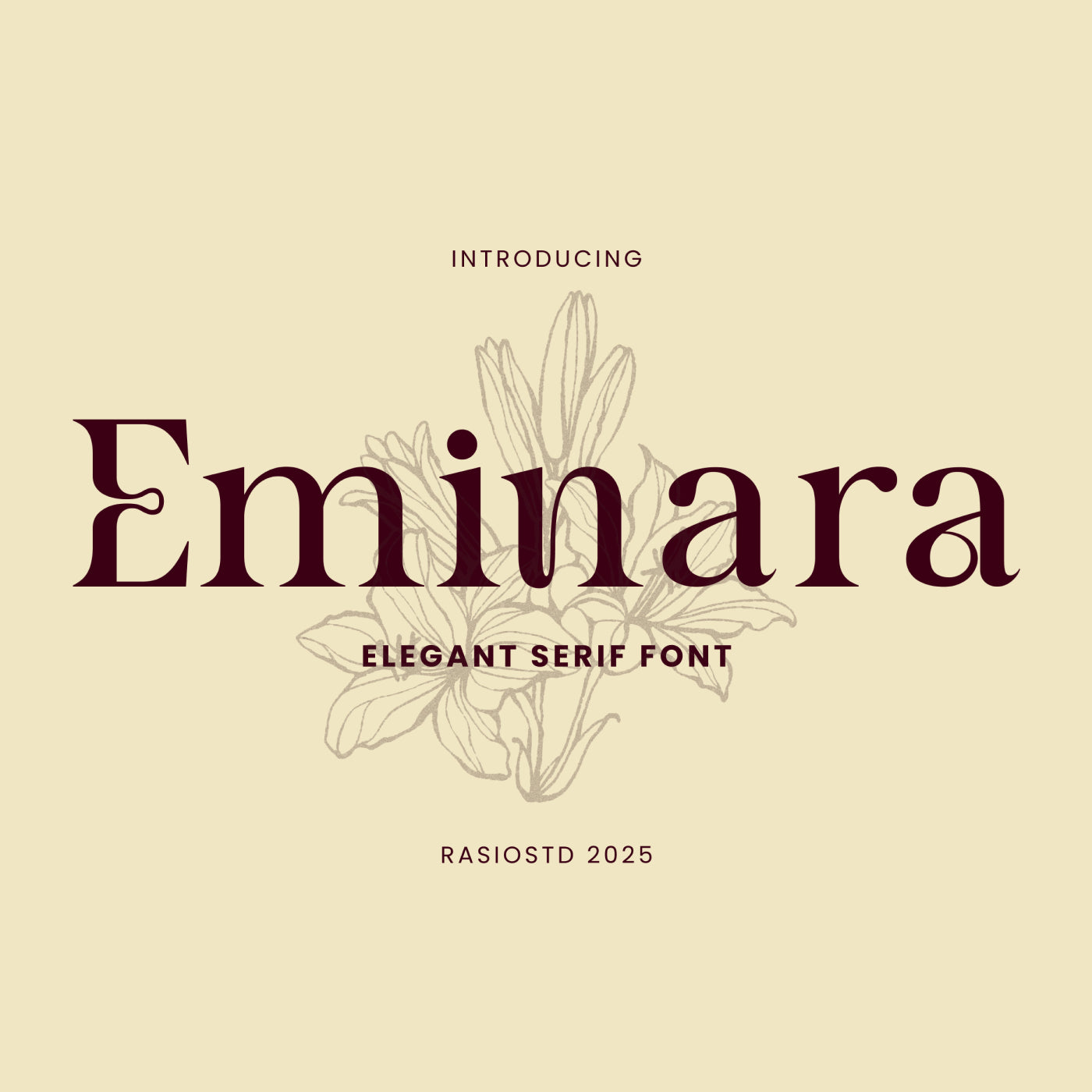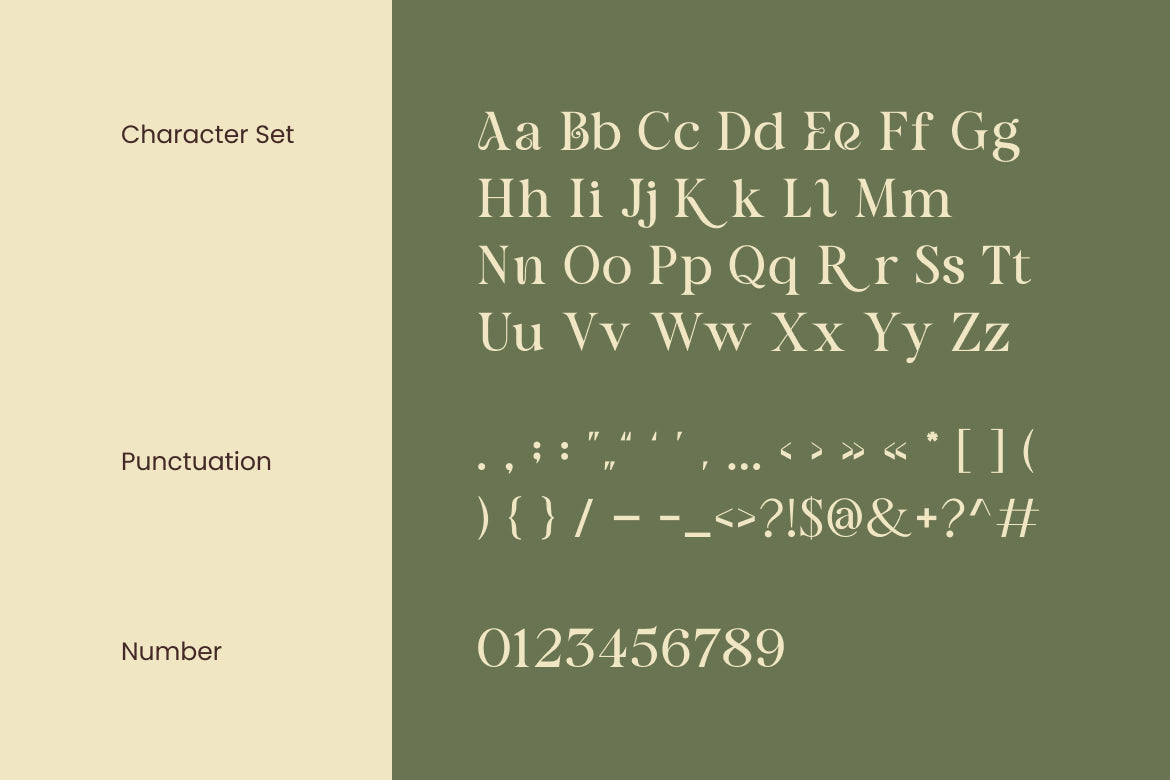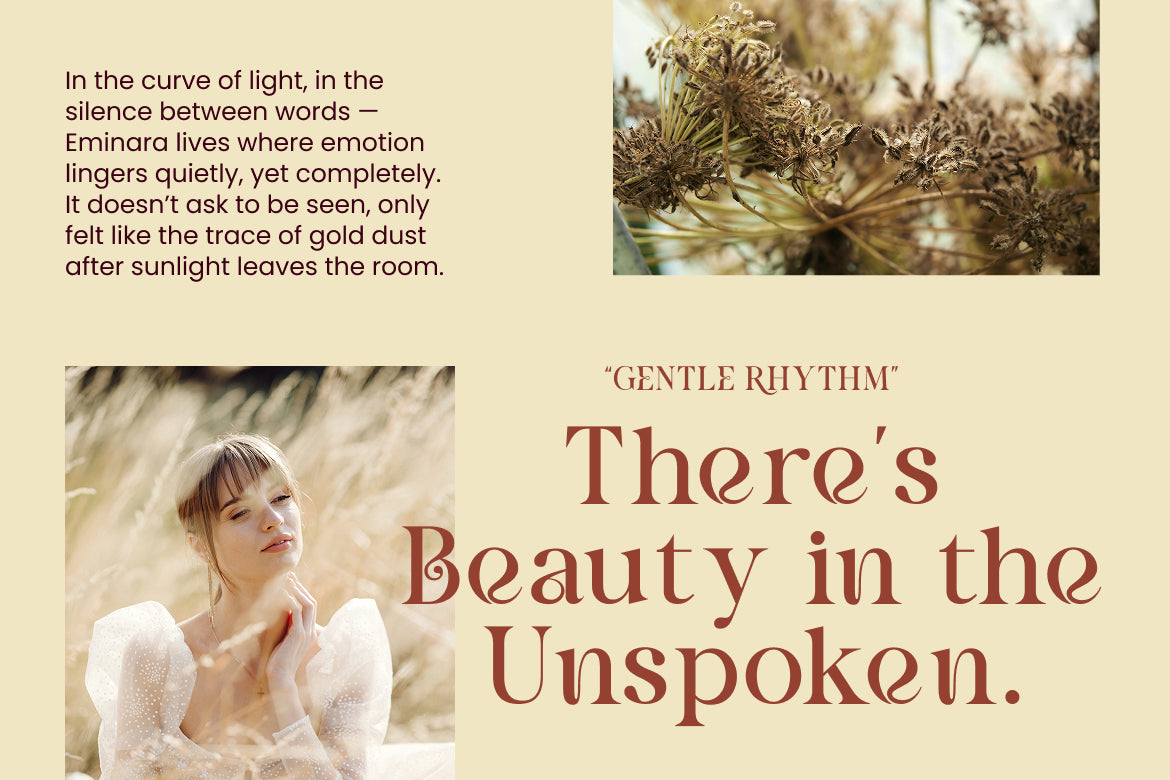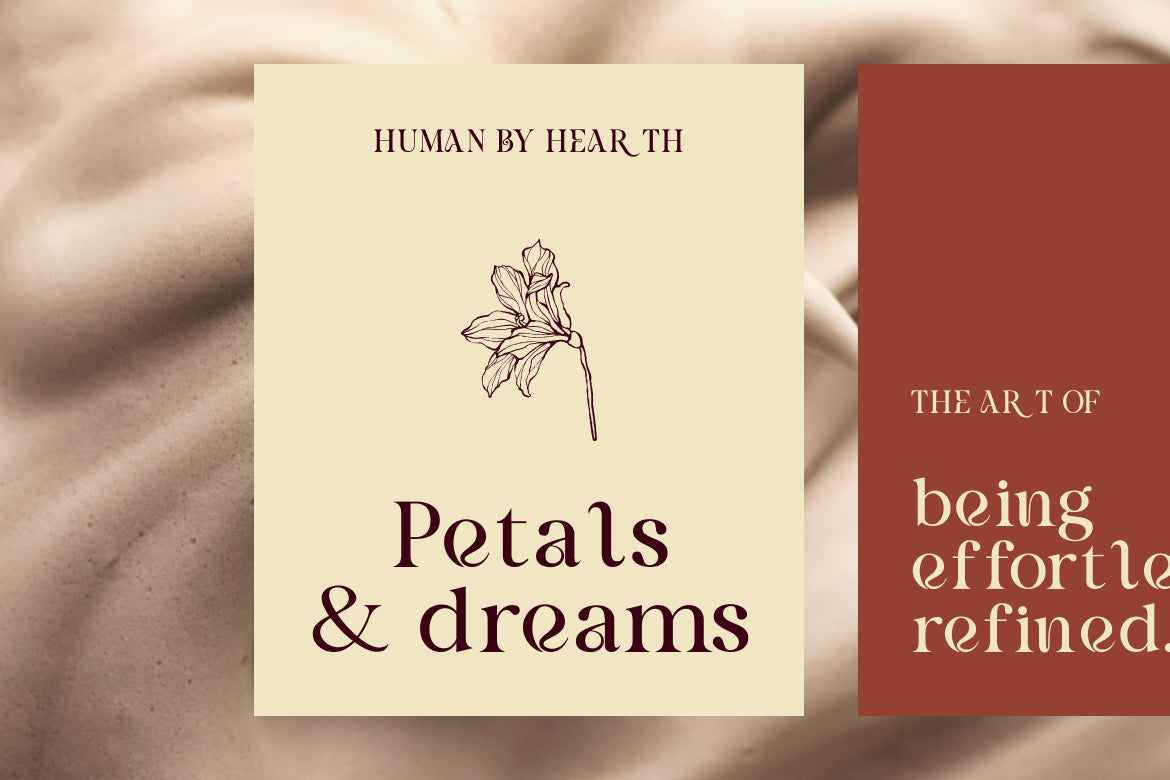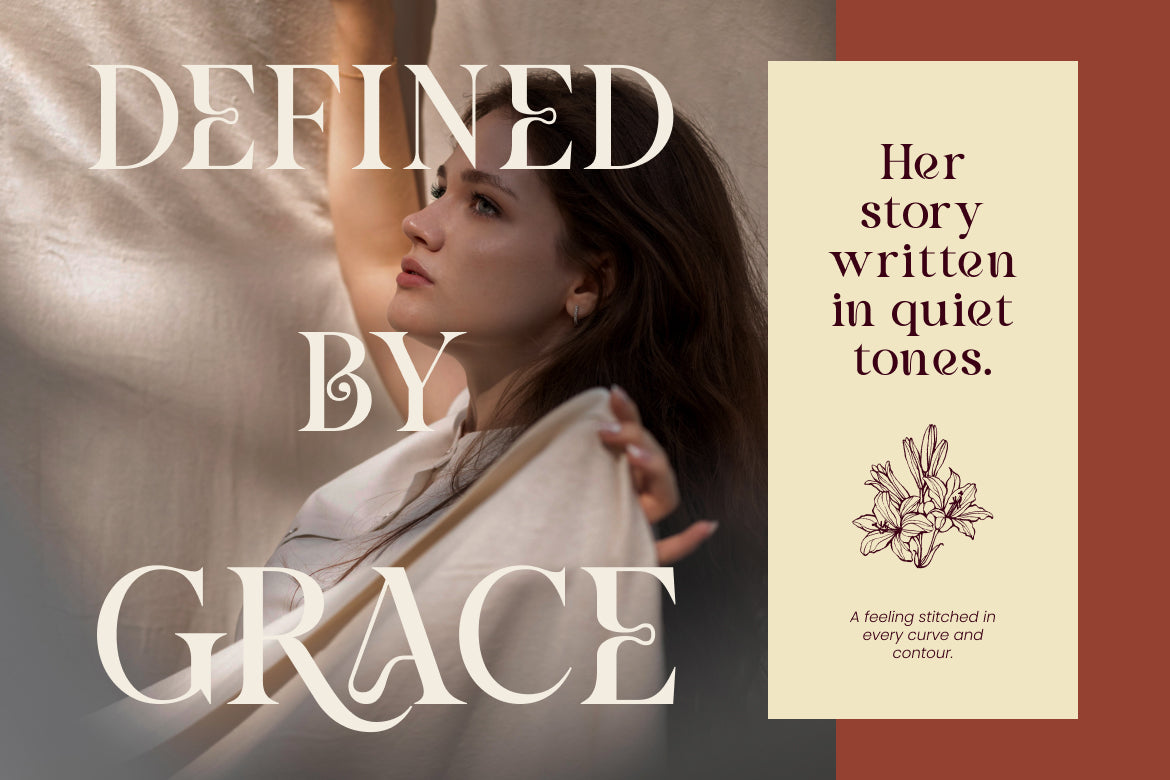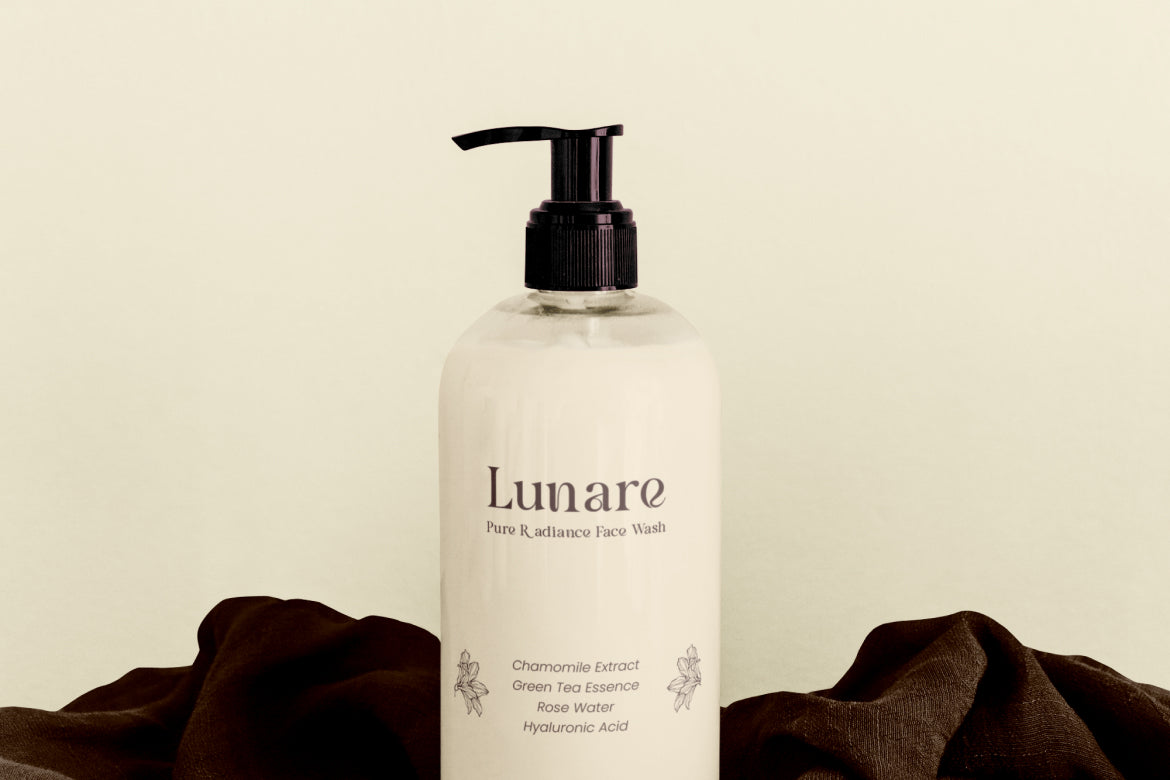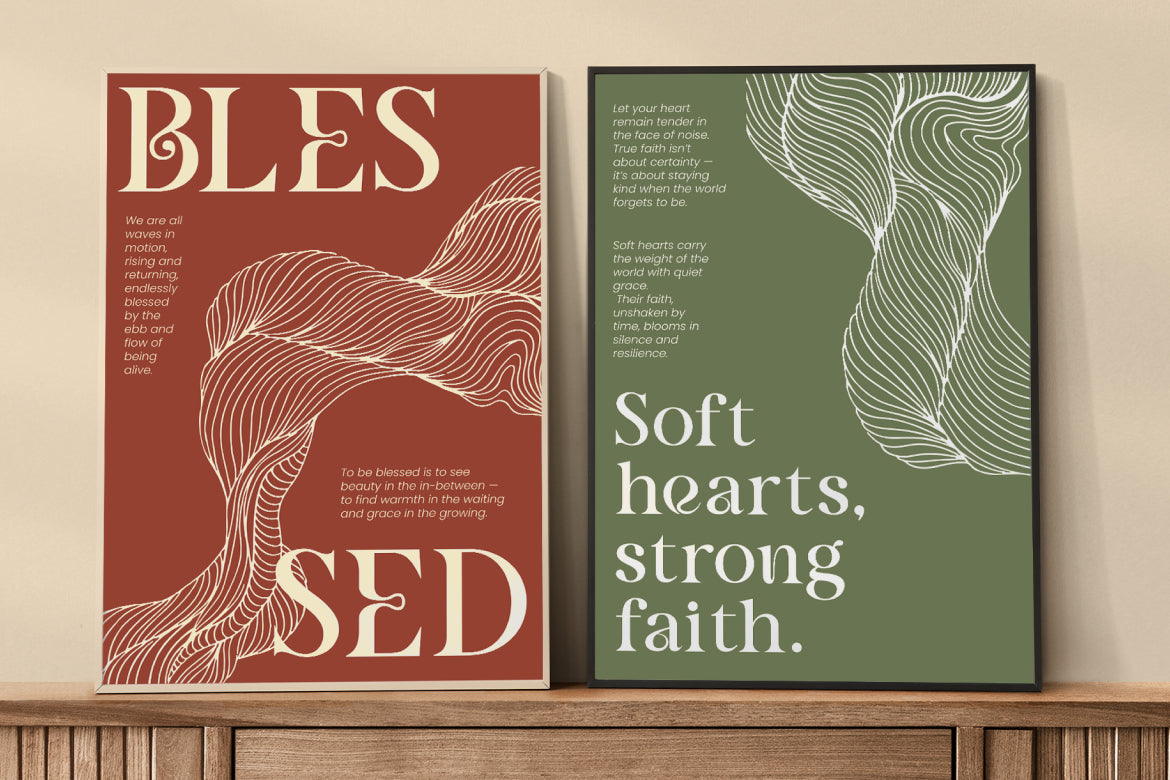
Eminara Elegant Serif Font
Eminara Elegant Serif Font showcases a refined serif design with modern proportions and classic grace. Each letter combines sharp contrast with soft curvature, creating a sophisticated rhythm ideal for editorial and luxury branding. The stylish terminals and decorative details evoke timeless elegance, making Eminara perfect for premium visual identities and high-end typography projects.